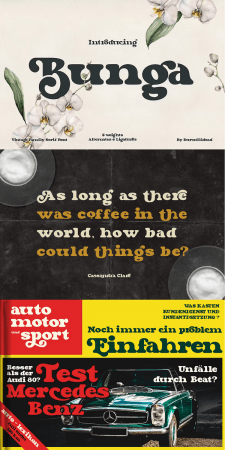
Bunga is a chic and bold serif font, featuring the perfect amount of trendiness. This font is PUA encoded which means you can access all of the glyphs and swashes with ease!
Fall in love with its incredibly versatile style and use it to create spectacular designs!